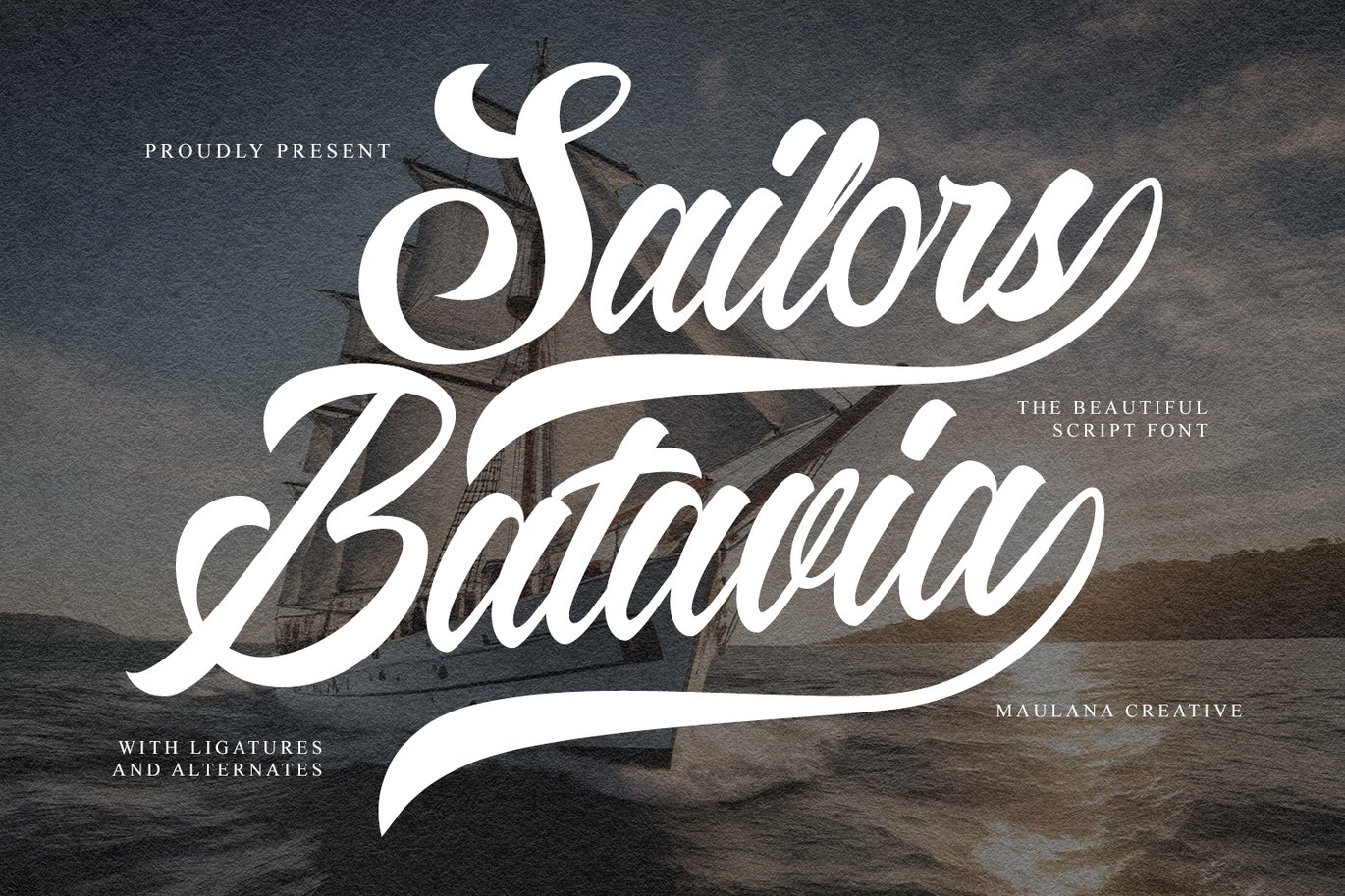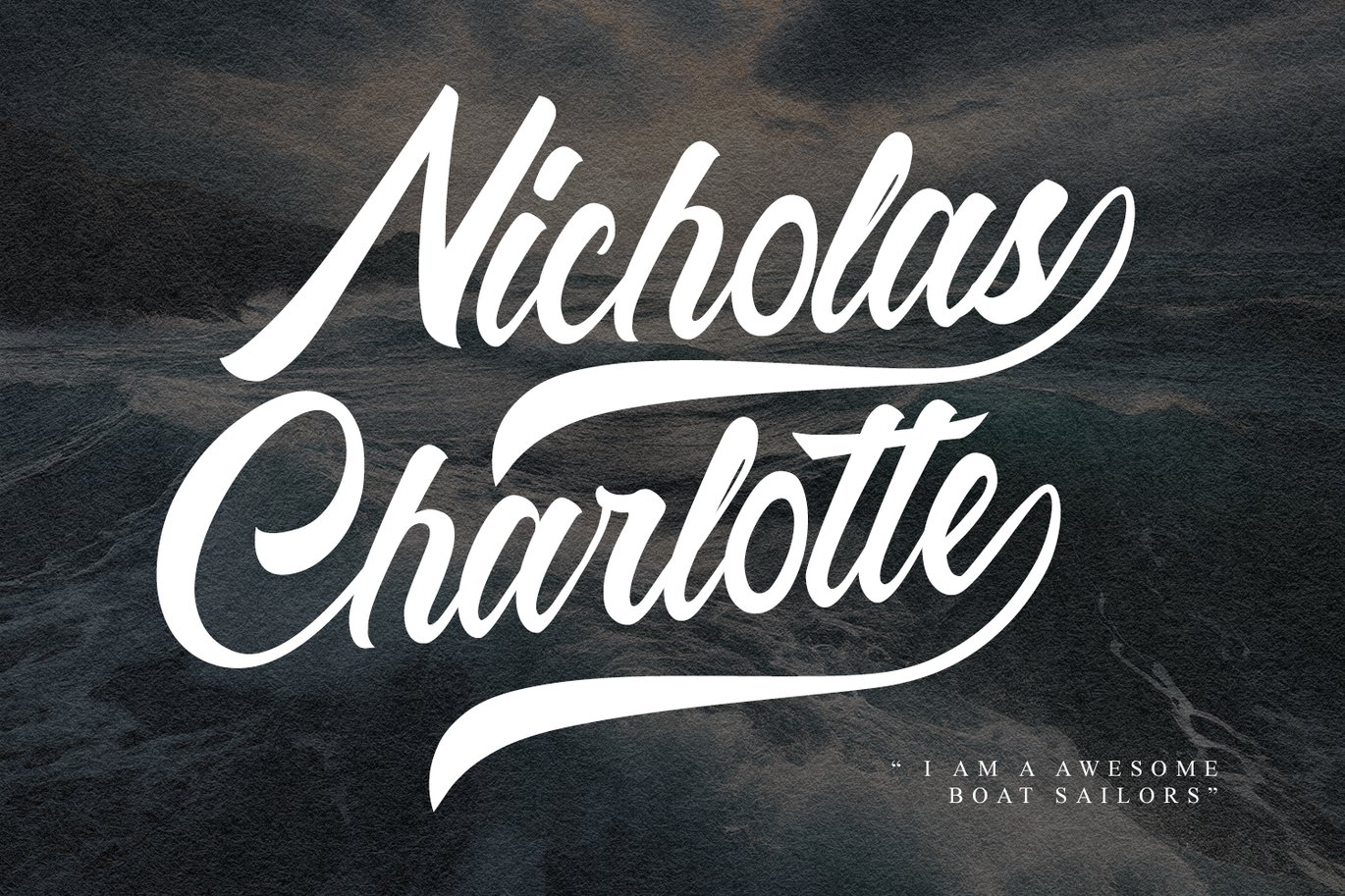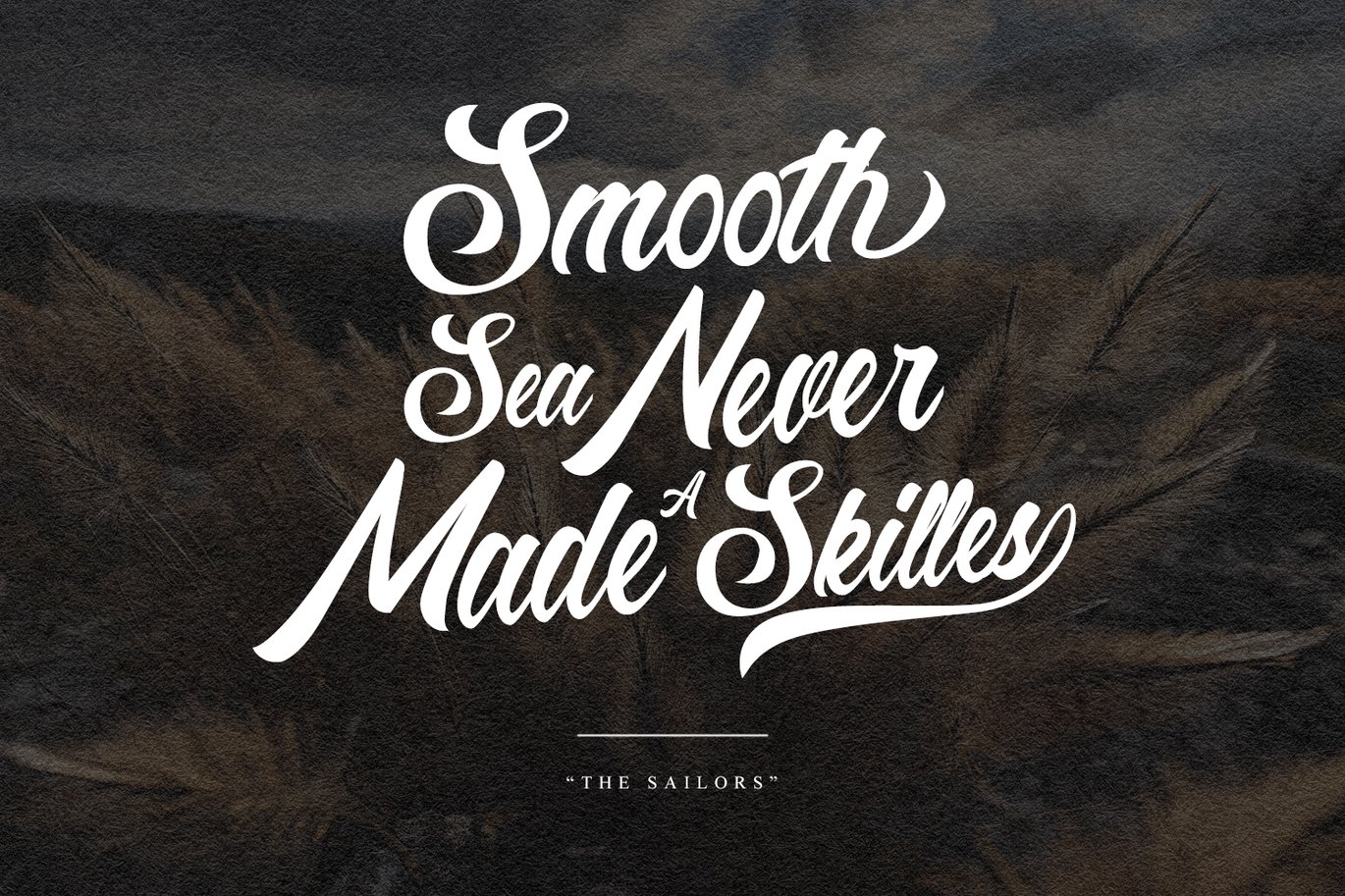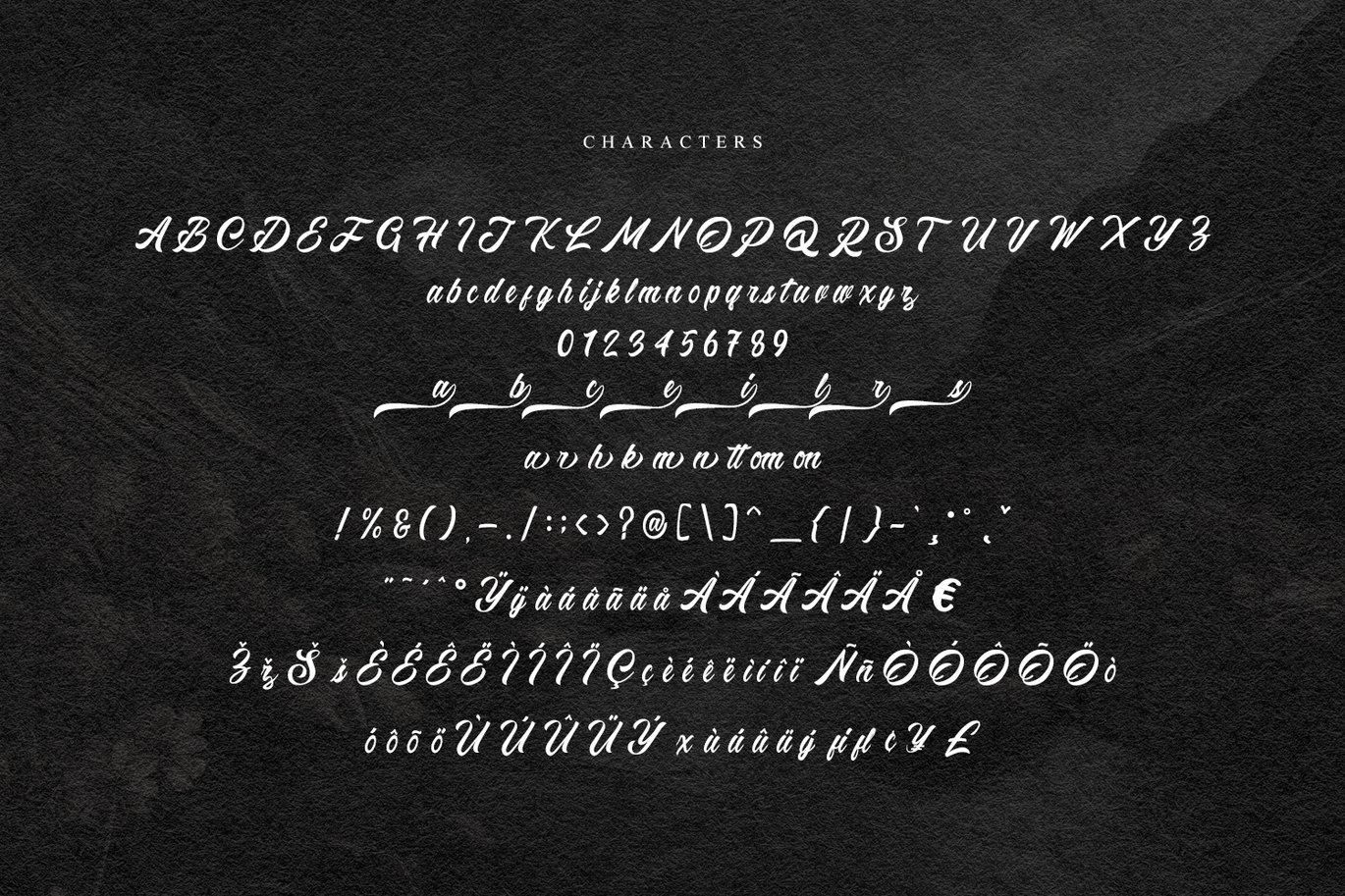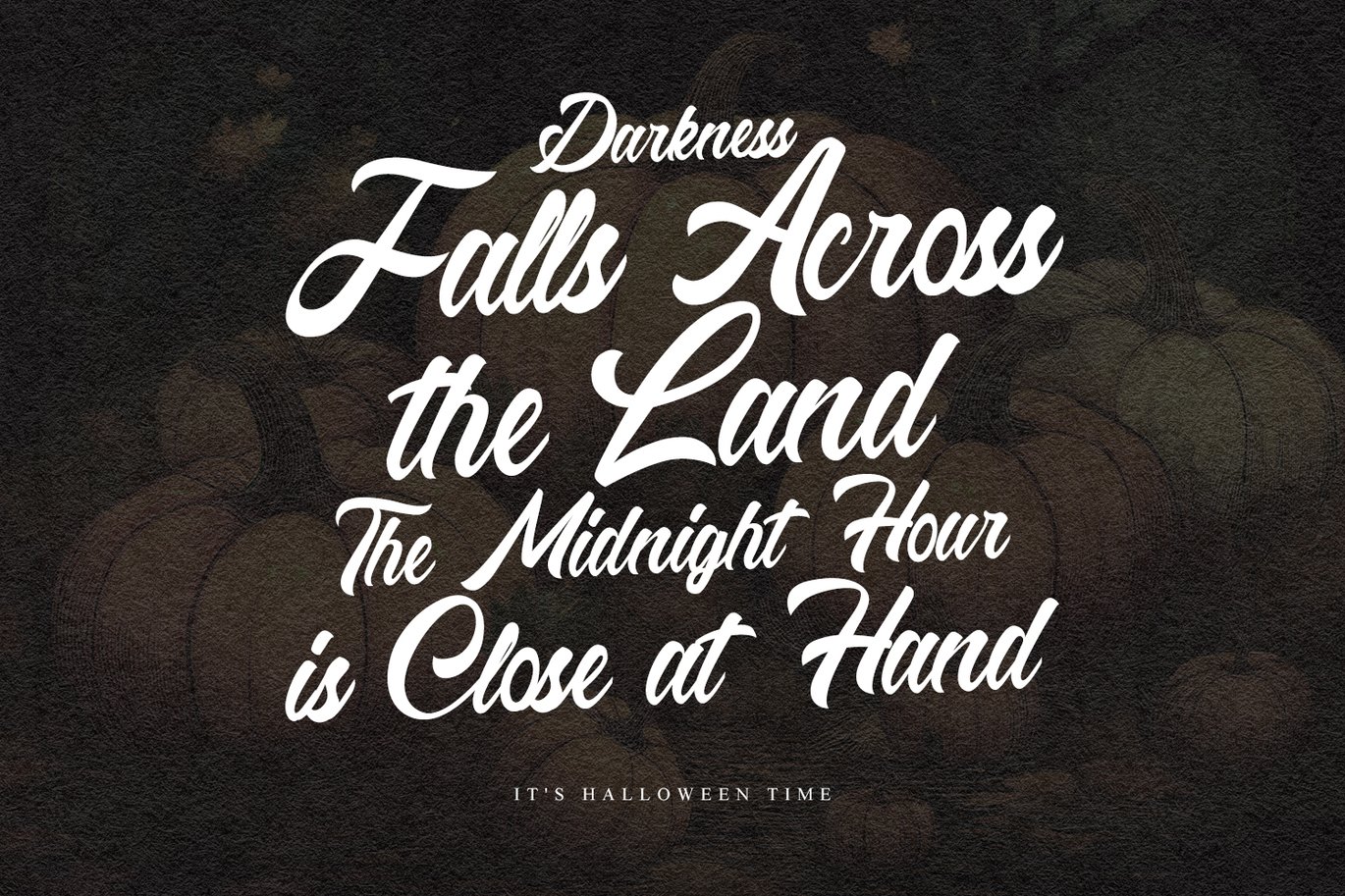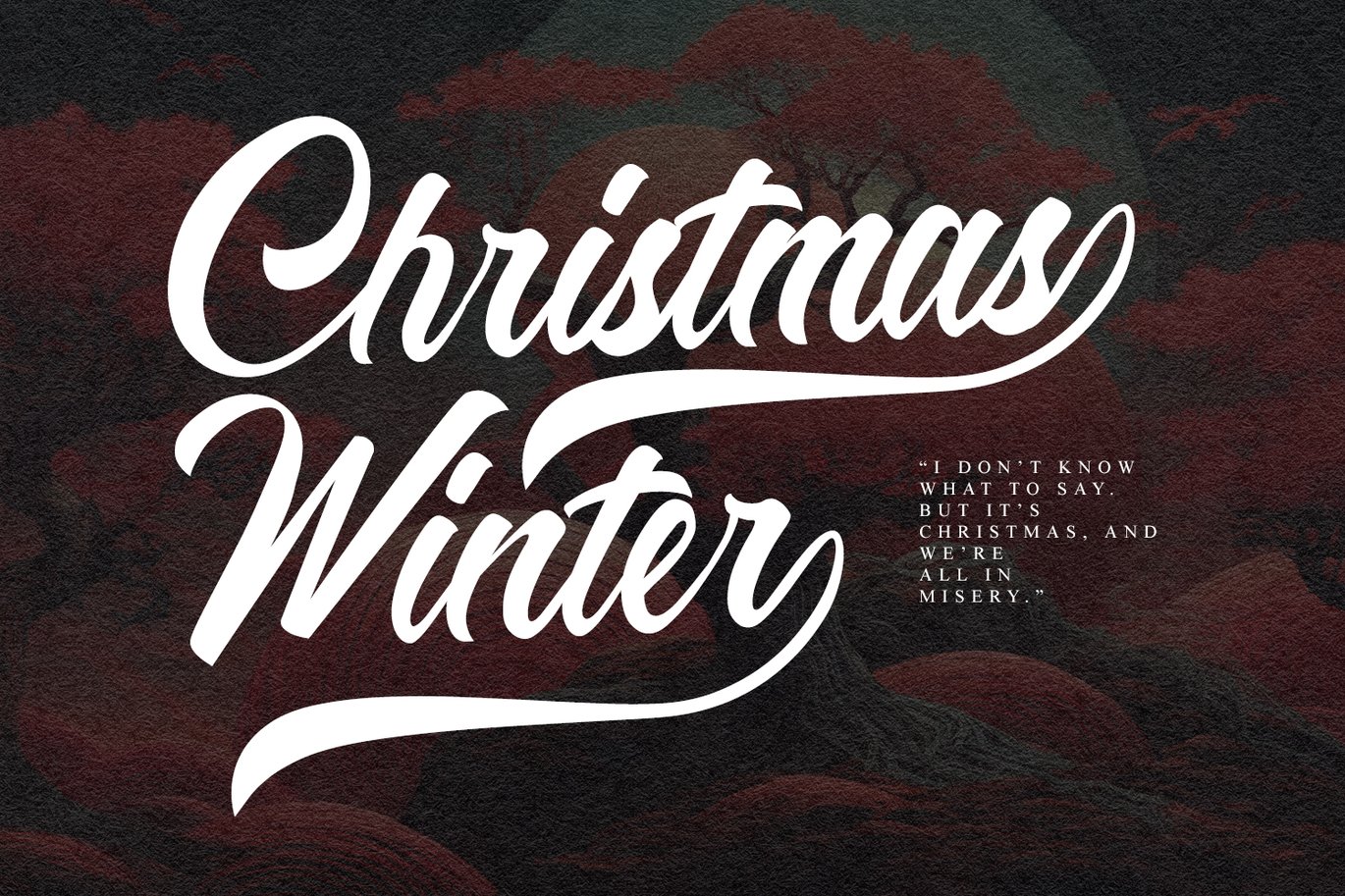
Sailors Batavia Beautiful Script Font
Give your designs an authentic handcrafted feel. “Sailors Batavia Beautiful Script Font” is perfectly suited to stationery, logo, typography quotes, magazine or book cover, website header, clothing, branding, packaging design and more.